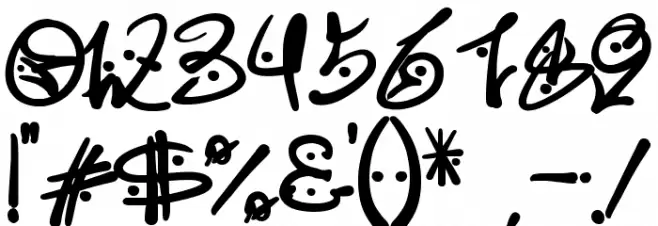
Vabioxe Graffiti Font
Vabioxe Graffiti Description
This graffiti-style font exudes an urban, edgy vibe with its bold, dynamic strokes and intricate details. Each character is uniquely stylized, featuring sharp angles and fluid curves that mimic the spontaneous nature of street art. The font captures the essence of graffiti with its expressive and rebellious aesthetic, making it ideal for projects that require a bold statement. The letters are tightly spaced, enhancing the compact and energetic feel. The numbers and special characters maintain the same artistic flair, ensuring a cohesive look across all text elements.
A bold, graffiti-style font with dynamic strokes and urban flair from Uncategorized fonts.
- Proposed Projects: Ideal for street art-inspired designs, music album covers, urban-themed posters, and edgy branding projects.
- Character Spacing: Tight
- Overall Style: Urban, Edgy, Artistic
- Use Case: Logos, Posters, Album covers